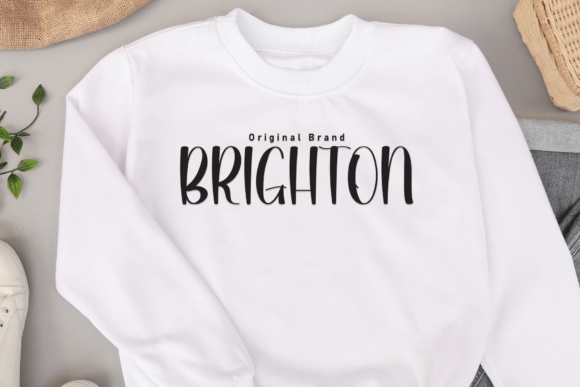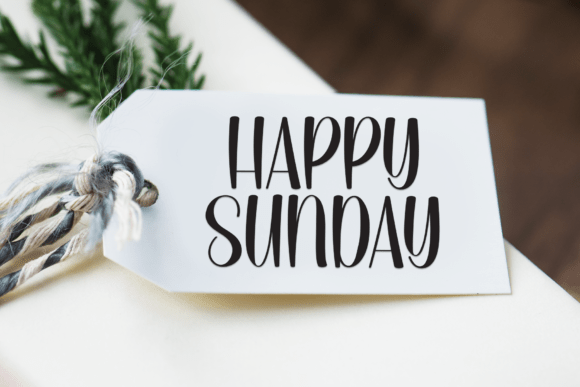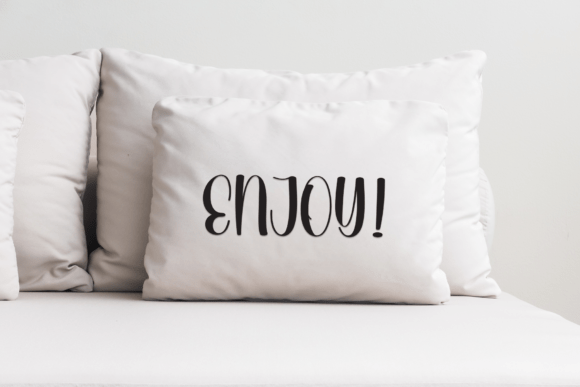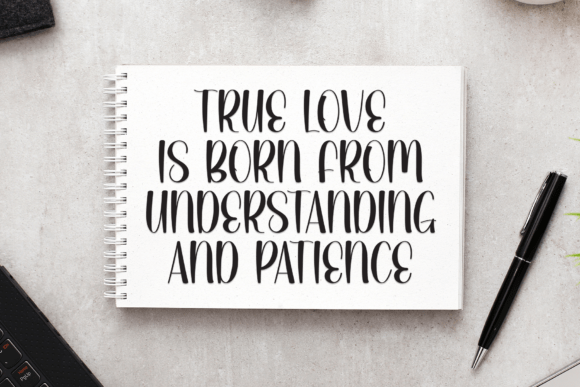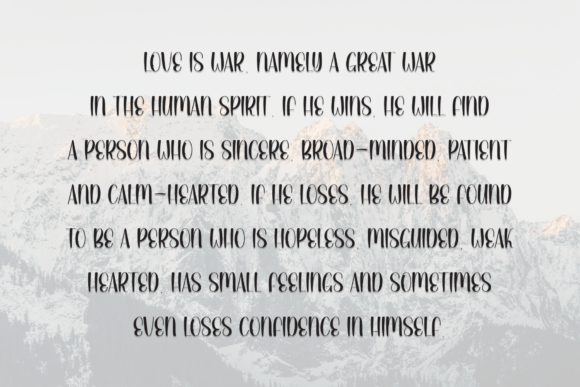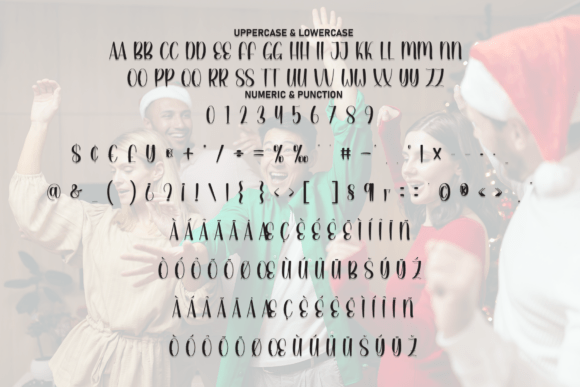
Dancing Christmas Font: Add a Touch of Whimsy to Your Holiday Designs
Are you looking for a font that embodies the spirit of Christmas? Look no further than the Dancing Christmas Font, a handcrafted display font that exudes warmth, charisma, and a dash of magic. This elegant font is perfect for adding a sophisticated touch to your holiday designs, from wedding invites to sentiment-filled cards.
A Font that Radiates Warmth and Charisma
The Dancing Christmas Font is more than just a font – it’s a work of art that has been skillfully crafted with care and joy. Its unique design effortlessly inserts a sparkling vivacity into your designs, making it perfect for adding a touch of whimsy to your holiday creations. Whether you’re a designer, crafter, or DIY enthusiast, this font is sure to captivate your audience and leave a lasting impression.
Perfect for Wedding Invites and Sentiment-Filled Cards
The Dancing Christmas Font is ideal for lending a sophisticated air to your wedding invites and sentiment-filled cards. Its elegant design and enchanting charm make it perfect for:
- Wedding invitations and save-the-date cards
- Holiday greeting cards and gift tags
- Personalized stationery and letterheads
What Makes Dancing Christmas Font So Special?
So, what sets the Dancing Christmas Font apart from other fonts? Here are just a few of its unique features:
- Handcrafted design: Each letter has been carefully crafted to ensure a unique and personal touch.
- Enchanting charm: The font’s whimsical design adds a dash of magic to your designs.
- Elegant and sophisticated: Perfect for adding a touch of luxury to your holiday creations.
- Versatile: Suitable for a wide range of design projects, from digital to print.
How to Use Dancing Christmas Font in Your Designs
Using the Dancing Christmas Font in your designs is easy. Here are a few tips to get you started:
- Pair it with complementary fonts: Combine the Dancing Christmas Font with other fonts to create a unique and eye-catching design.
- Experiment with colors: Try out different colors and textures to add depth and interest to your design.
- Use it for headings and titles: The Dancing Christmas Font is perfect for headings and titles, adding a touch of elegance and sophistication to your design.
Why Designers and Crafters Love Dancing Christmas Font
Designers and crafters love the Dancing Christmas Font for its unique blend of elegance and whimsy. Here are just a few reasons why:
- It’s a time-saver: The Dancing Christmas Font is easy to use and saves you time and effort in your design projects.
- It’s versatile: Suitable for a wide range of design projects, from digital to print.
- It’s high-quality: The font is of exceptional quality, ensuring a professional finish to your designs.
The Dancing Christmas Font is a must-have for designers and crafters looking to add a touch of magic to their holiday designs. Its unique blend of elegance and whimsy makes it perfect for a wide range of design projects, from wedding invites to sentiment-filled cards. With its handcrafted design, enchanting charm, and sophisticated air, this font is sure to captivate your audience and leave a lasting impression.